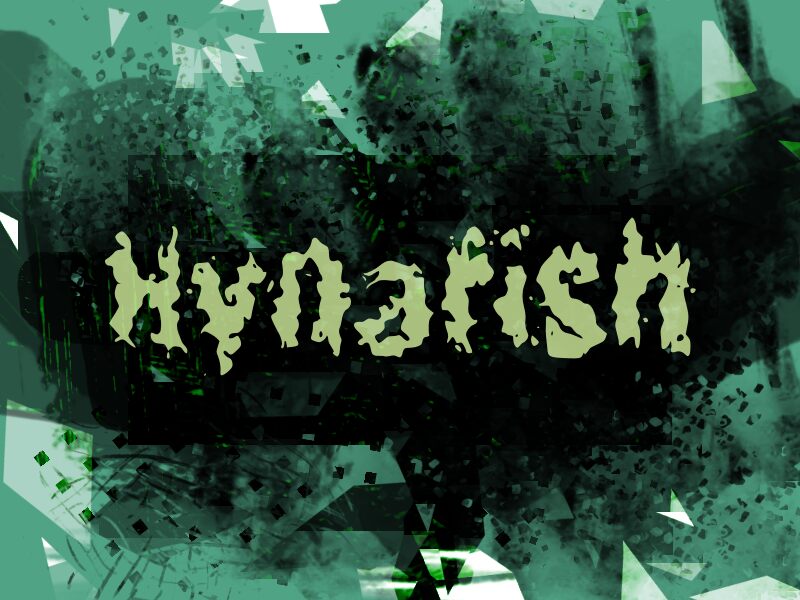
Hyenafish
Hyenafish font by wep is a display typeface that stands out with its distorted design and bold, condensed finish. Letters feature uneven specifics and rough edges that contribute greatly to the font’s dark mood. Additionally, grunge elements are present along with chaotic organic shapes, creating lovely high-contrast effects in the process.
This free font works for short large-size text as well as logotypes and icons. Other suggested user interfaces are website headers, branding projects, packaging designs, and poster designs.